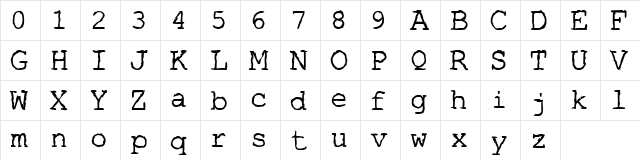
Screenwriter's Nightmare Bold
Design Context for Screenwriter's Nightmare Typeface
Screenwriter's Nightmare is a composed and adaptable typeface that performs quietly and consistently across a wide range of design contexts. Its bold stroke weight gives it real presence on the page.